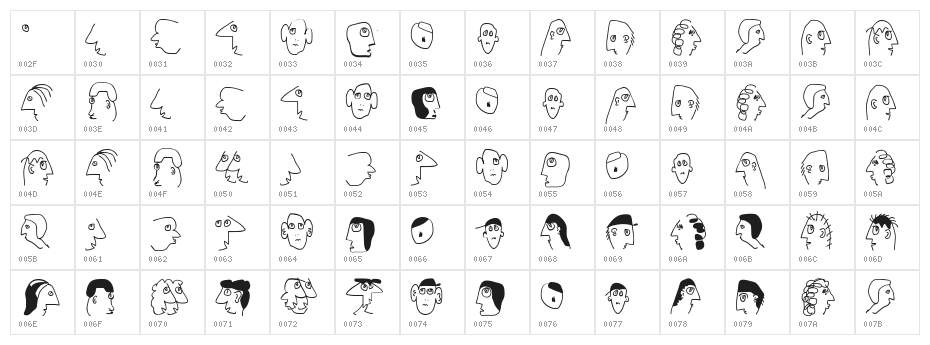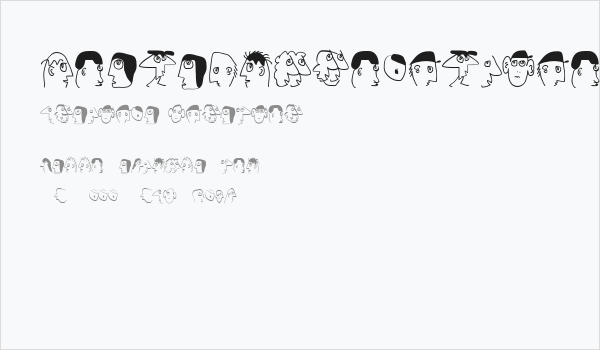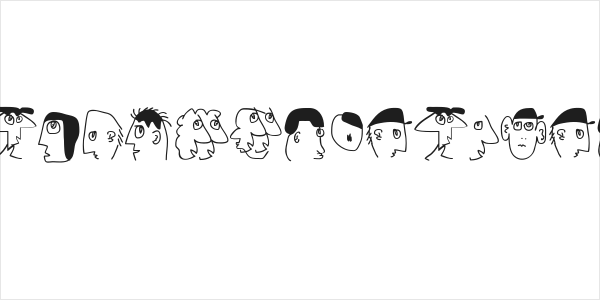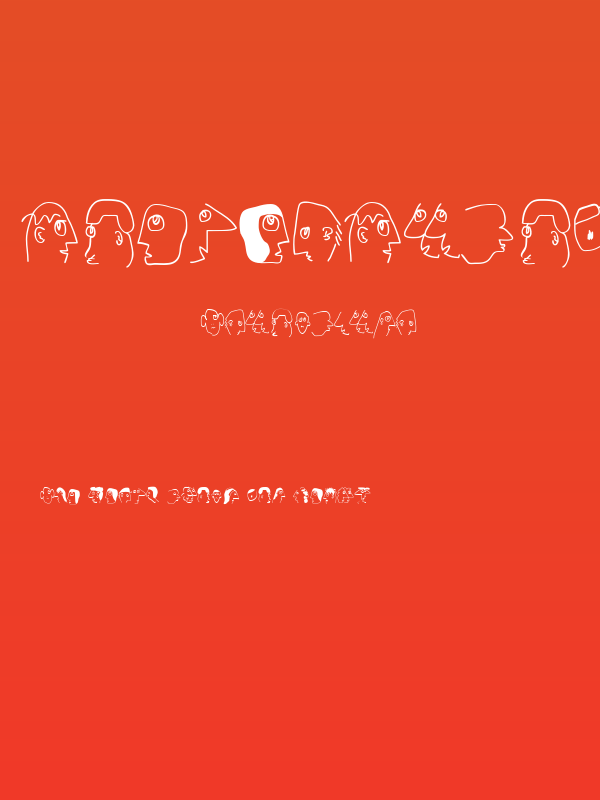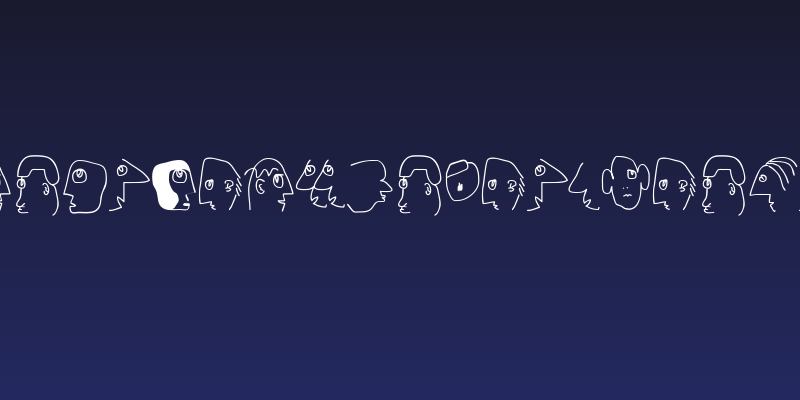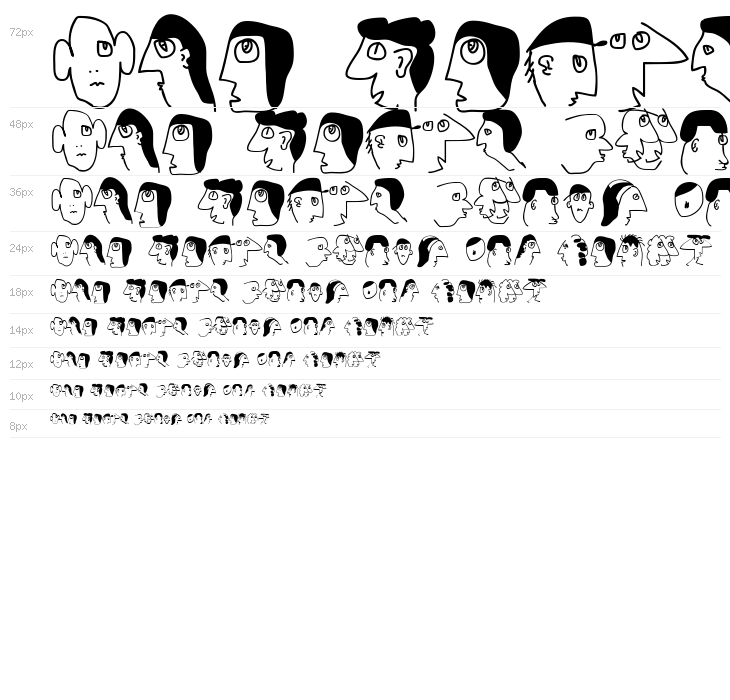
MouseImprovisations Font
MouseImprovisations Description
A playful, hand-drawn decorative font where each character is represented by a unique, abstract face illustration. The lines are irregular and whimsical, giving a sketch-like, improvisational feel. Each glyph is distinct, with varying facial expressions and features, emphasizing individuality and creativity.
| Overall Style | Whimsical, Artistic, Playful, Hand-drawn |
| Use Case | Logos, Posters, Art projects, Headlines |
| Proposed Projects | ChildrenΓ’β¬β’s books, creative posters, art projects, branding for playful or artistic businesses, event invitations. |